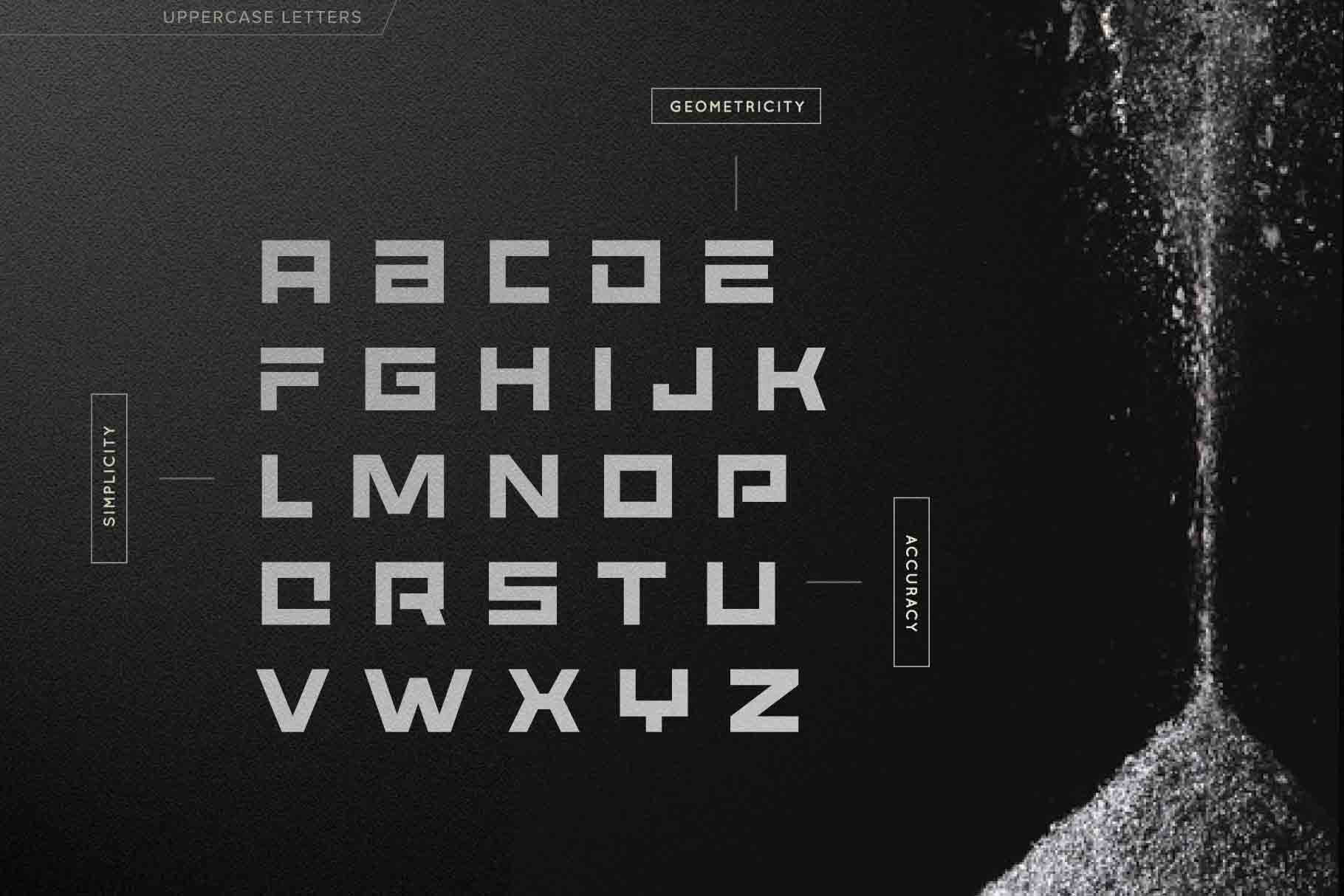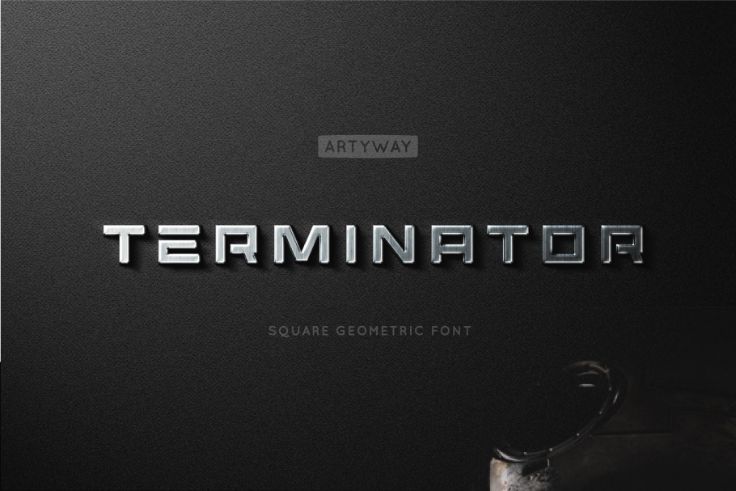
As the name goes “Terminator”, this font family is characterized as powerful, dynamic, and confident. This font will look even more stunning when paired with metallic gradient colors that highlight its masculinity.
This font is best suited for technological and innovative products.